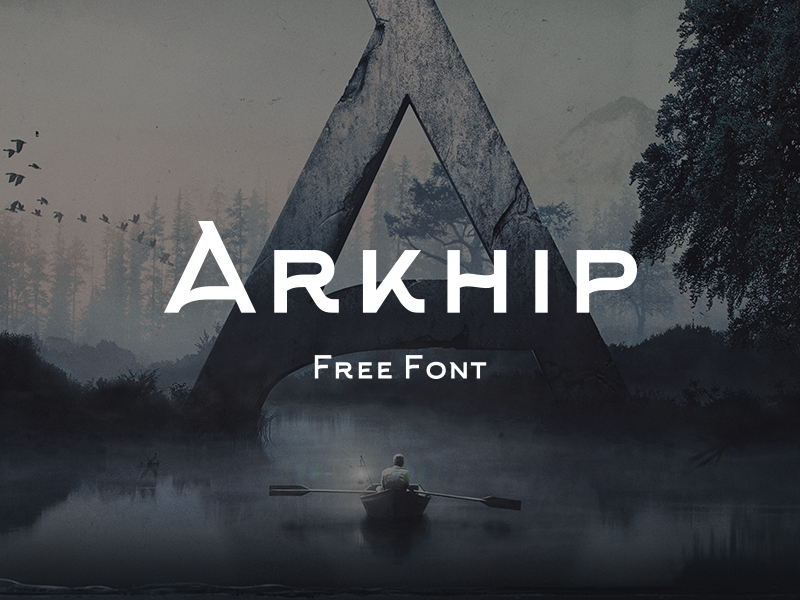
Arkhip - New Font. The free font with a Russian soul. Created in USSR. Presentation&Download Behance - http://on.be.net/1wyavhN Site - http://arkhipfont.ru |